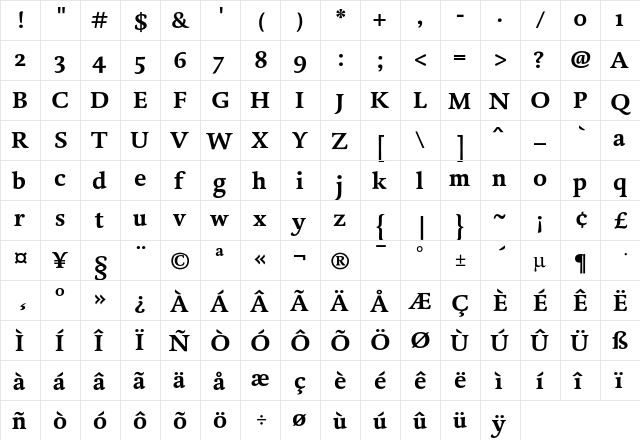
DTL Dorian ST Bold
Design Context for DTL Dorian Typeface
DTL Dorian is a composed and adaptable typeface that performs quietly and consistently across a wide range of design contexts. The heavy weight commands attention and anchors typographic hierarchies.